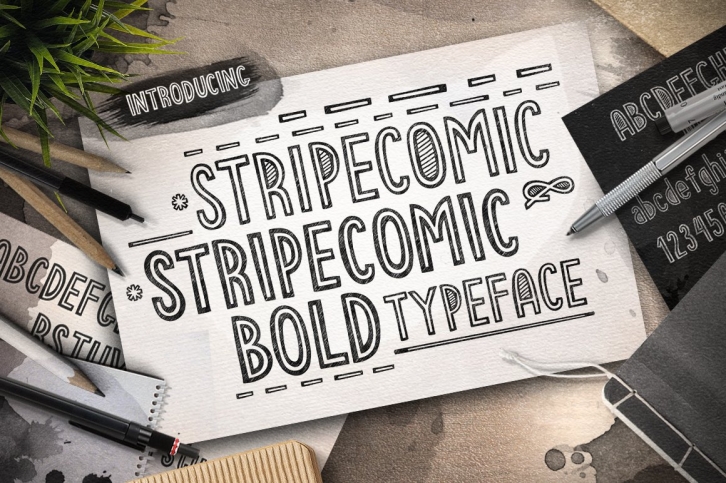
STRIPECOMIC + STRIPECOMIC BOLD hand drawn Typeface
"Stripecomic" typeface is a handmade font. This is good for projects like a menu boards cafe, backgrounds, t-shirt, labels, flyers, posters or another design projects.